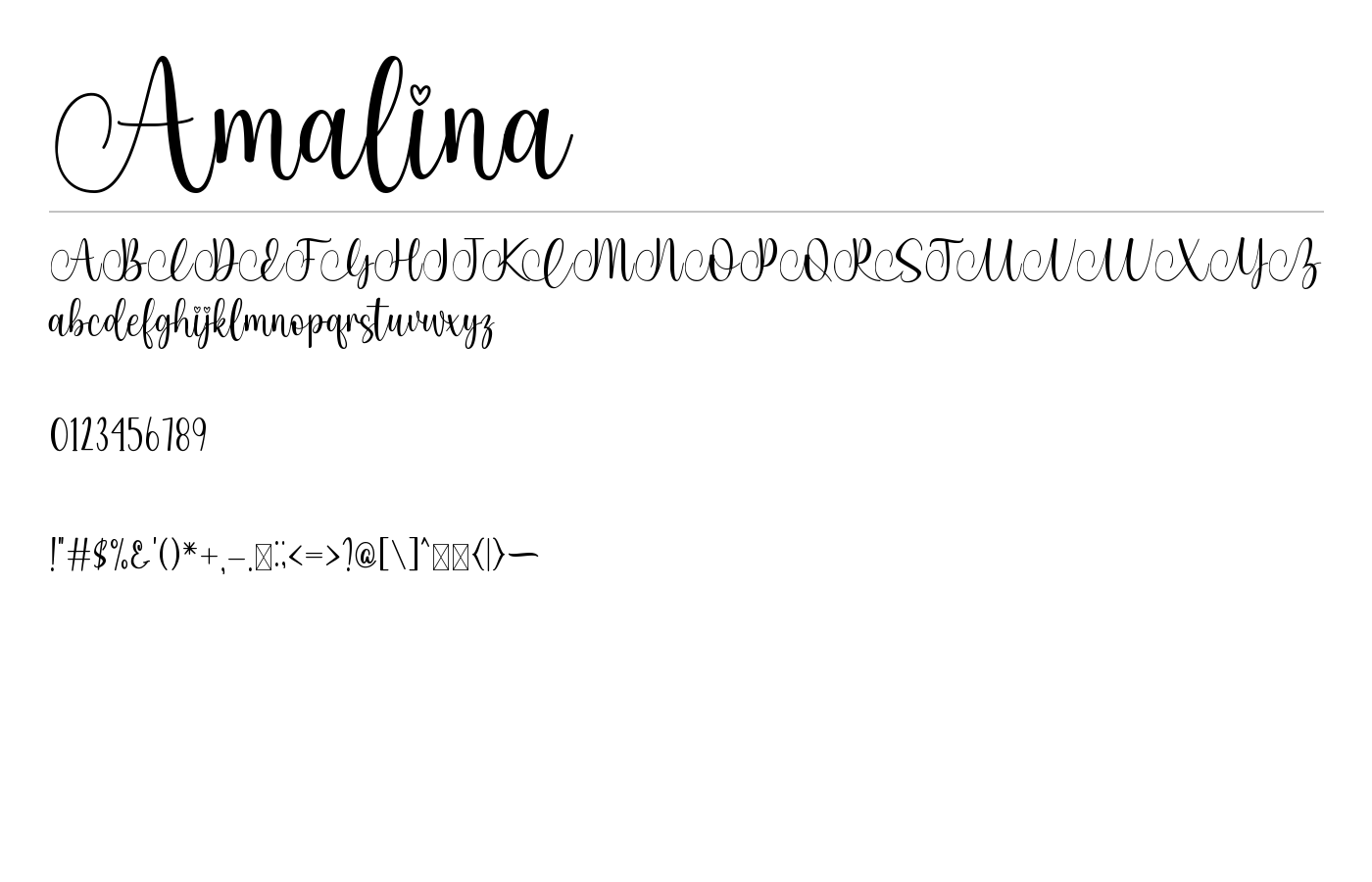
Amalina is a playful and elegant script font characterized by its tall, slender letterforms and delicate strokes with subtle contrasts. Featuring unique heart-shaped dots and whimsical swirls in uppercase letters, it brings a charming, hand-drawn feel perfect for adding a personal touch to invitations, branding, and feminine designs. This font works well in both headlines and decorative uses where a light, romantic atmosphere is desired.
Amalina Font
About Amalina Font
| Font family | Amalina Font |
| Designer | Danar Nugroho |